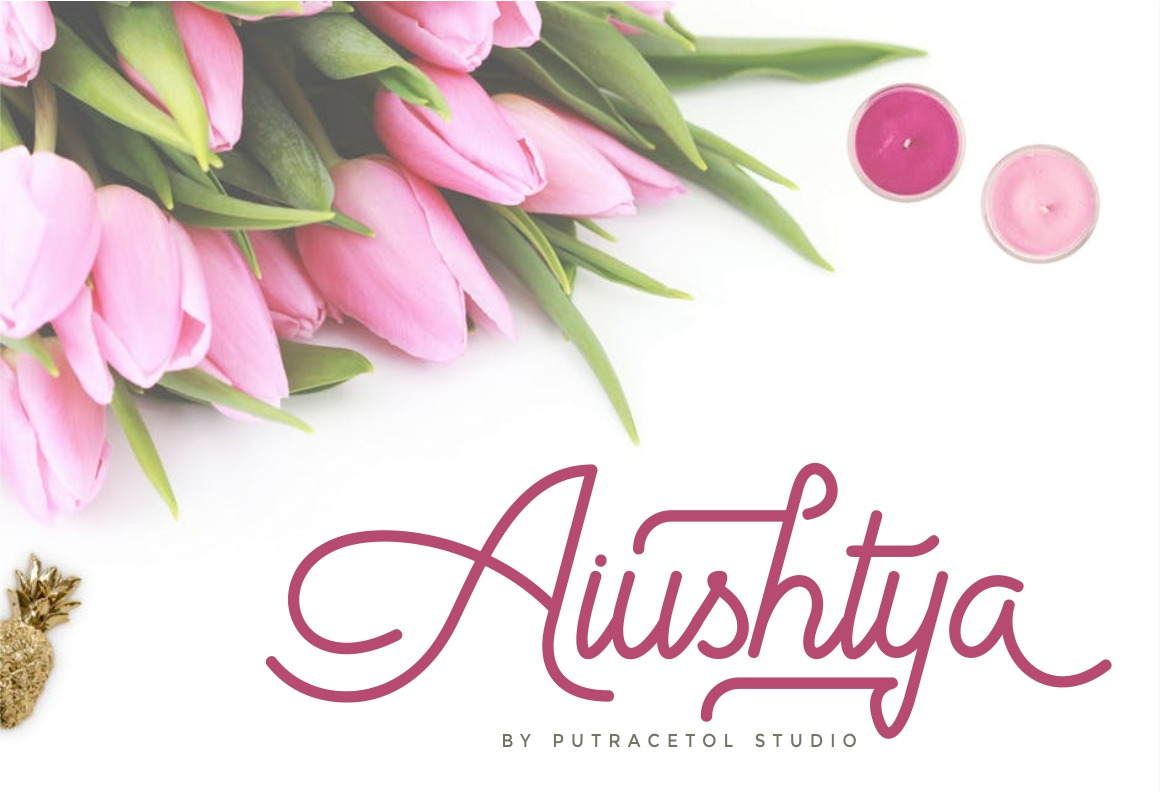
Aiushtya Font
Aiushtya
Aiushtya is a monoline script typeface with smooth charaters but still elegant and modern. Aiushtya is suitable for logos, signature, tagline, Tshirt, handwritten quotes, product packaging, poster, merchandise, social media, labels, branding, greeting cards, etc.
Comes with feature :
- Simple Ligature
- Number, Punctuation And Symbols
- Multilanguage